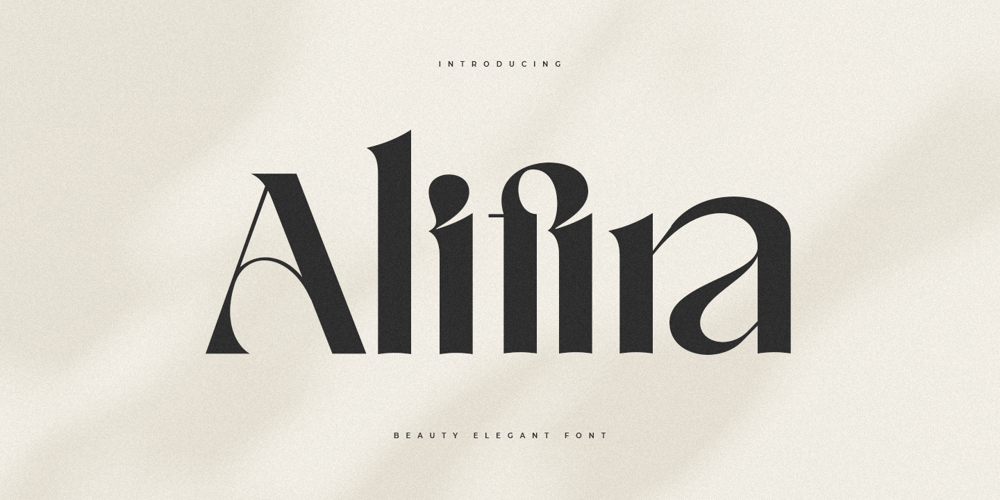
Alifira Style Font Family was designed by Zamroni Hamzah and published by Sensatype Studio. Alifira Style contains 2 styles and family package options. A Beauty Elegant font that we created special for elegant branding needs, with extra ligatures in unique shape will be ready to add value of your brand. It so nice to leverage designer or product owner that need solutions to make their design look more classy and modern. And specially for Alifira font, We prepared any ligatures and any unique characters to help you create unlimited variations for your creative needs.Alifira Beauty Elegant font ready with: Any options to get creative variations (combination of Ligatures) Preview as a inspirations that you can do with Alifira font Ready with Lowercase and Uppercase characters Wish you enjoy our font. ๐